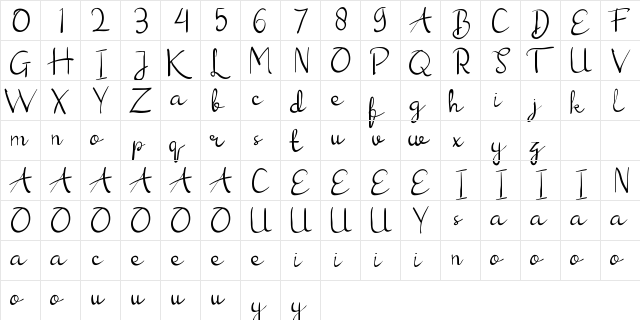
Rara Sekar Regular Font Preview
Rara Sekar Regular
Rara Sekar Regular Font Details
Design Context for Rara Sekar Typeface
Rara Sekar is a composed and adaptable typeface that performs quietly and consistently across a wide range of design contexts.